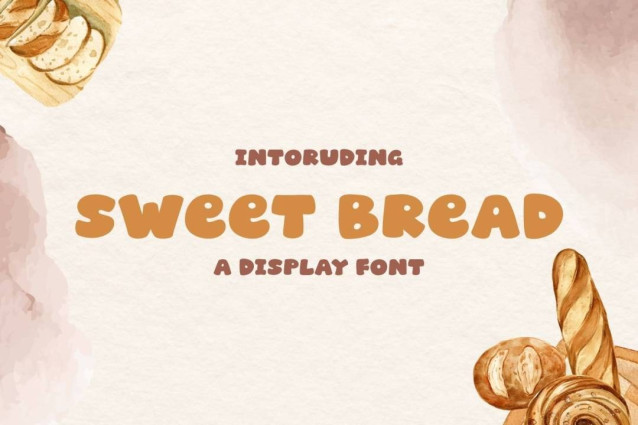
Sweet Bread Font
Sweet Bread Font is a simple and modern display font suitable for quotes, logos, headings, titles, and many more. Use it on any of your creative projects, and your designs will become outstanding!